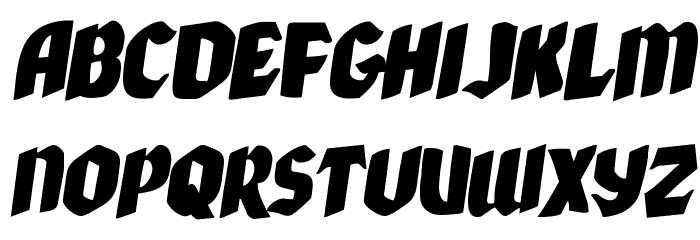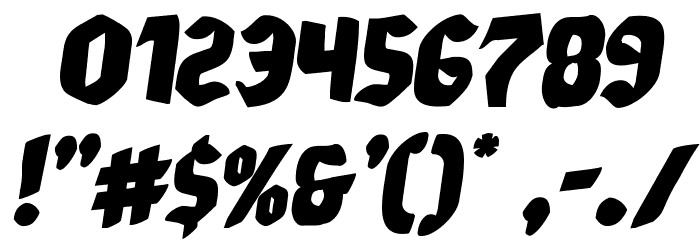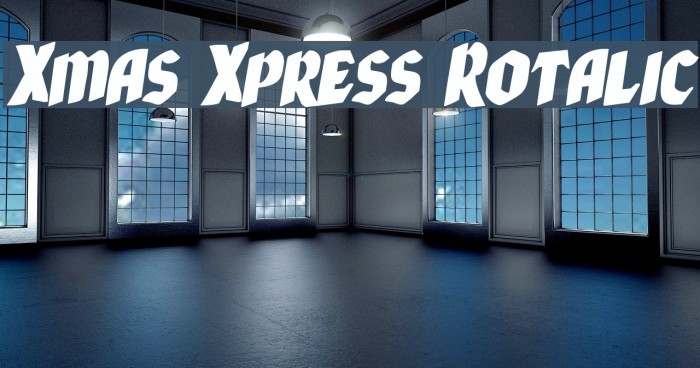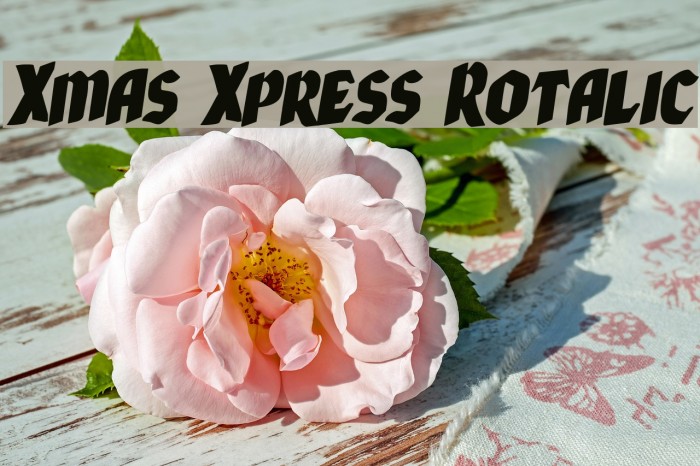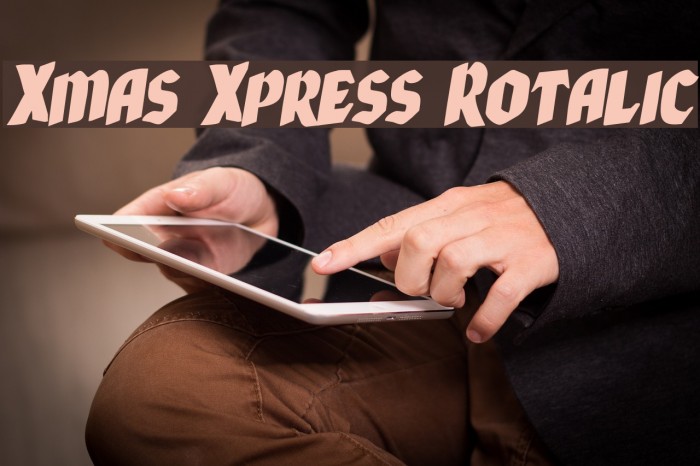
Xmas Xpress Rotalic Font
This font features a bold and dynamic style with a strong slant, giving it a sense of movement and energy. The characters are thick and robust, with a playful and slightly aggressive appearance. The strokes are consistent in weight, providing a uniform look across all characters. The font includes both uppercase and lowercase letters, numerals, and a variety of punctuation marks and special characters. Its distinctive style makes it stand out, making it ideal for attention-grabbing designs.
A bold, slanted font with a dynamic and energetic style.
- Font: Xmas Xpress Rotalic
- Proposed Projects: Perfect for holiday-themed designs, festive posters, or any project requiring a lively and bold typeface.